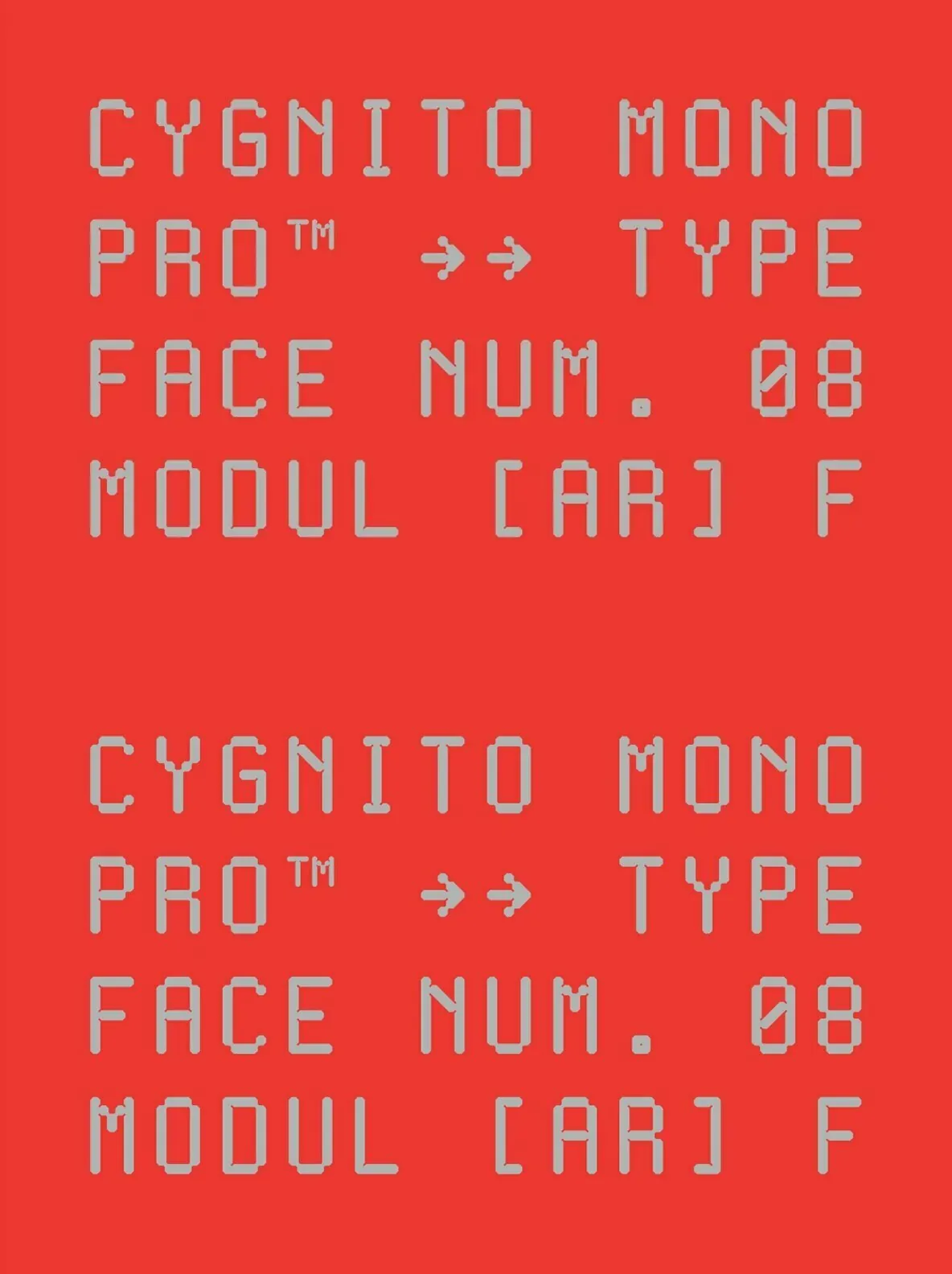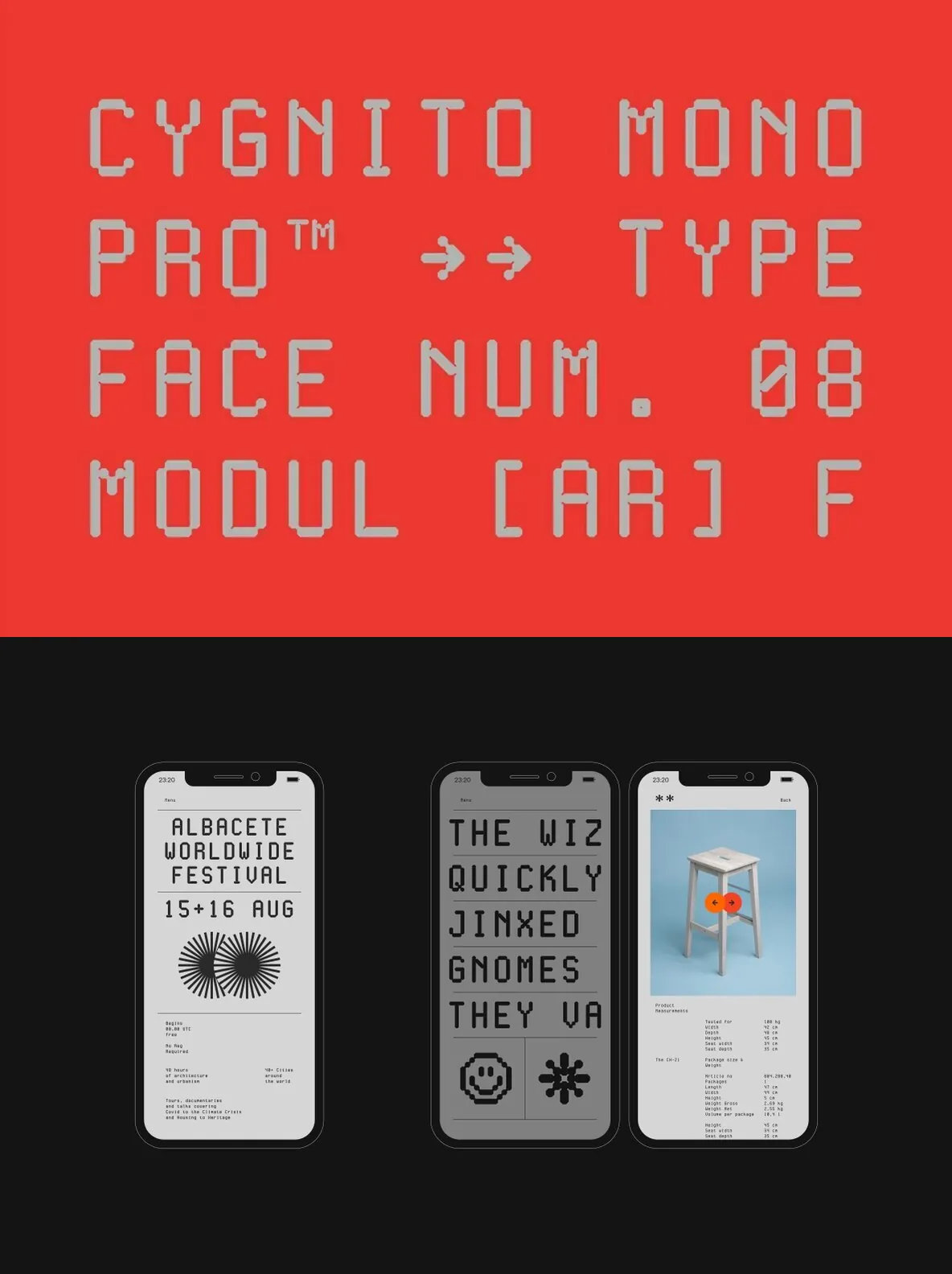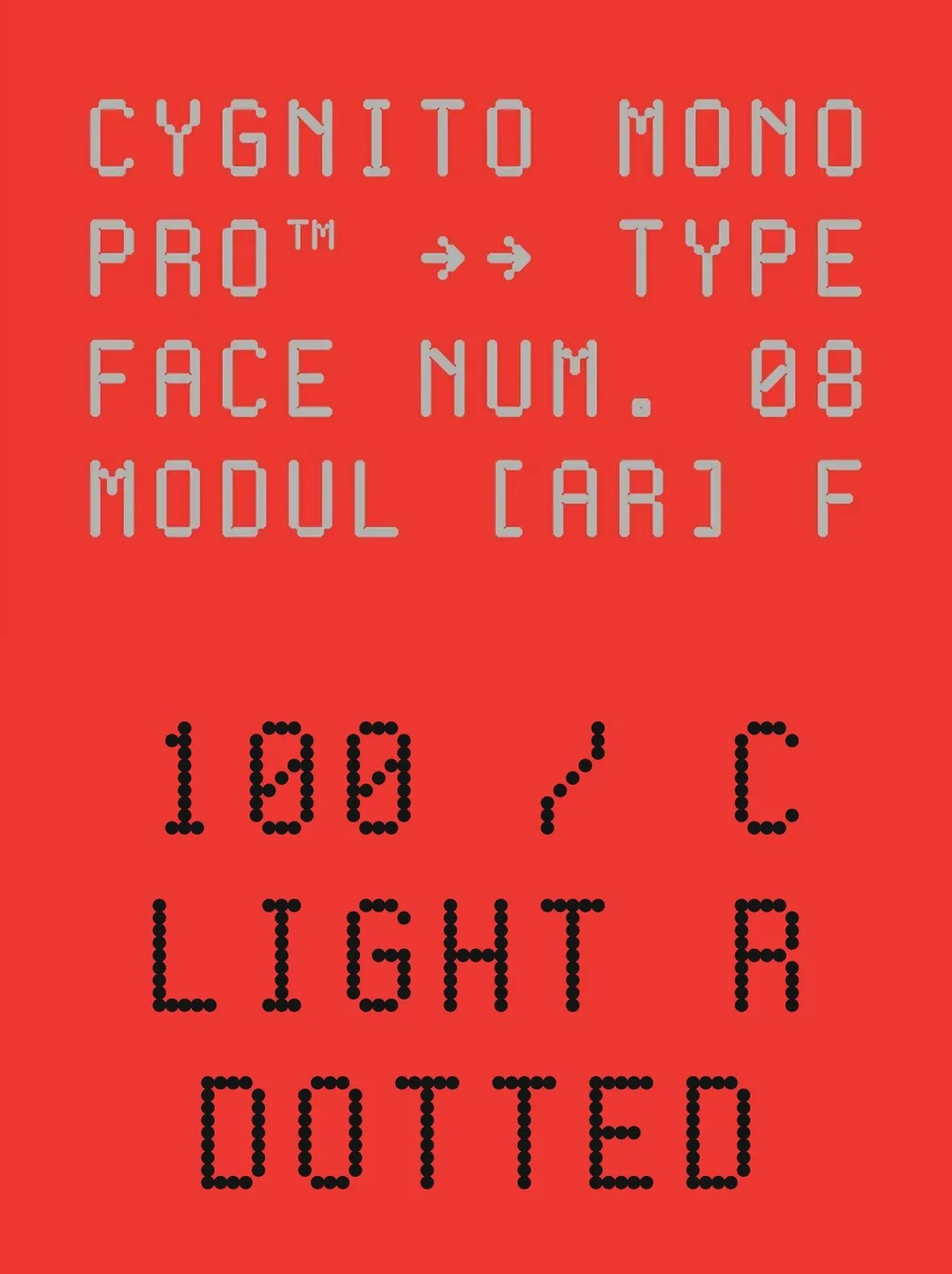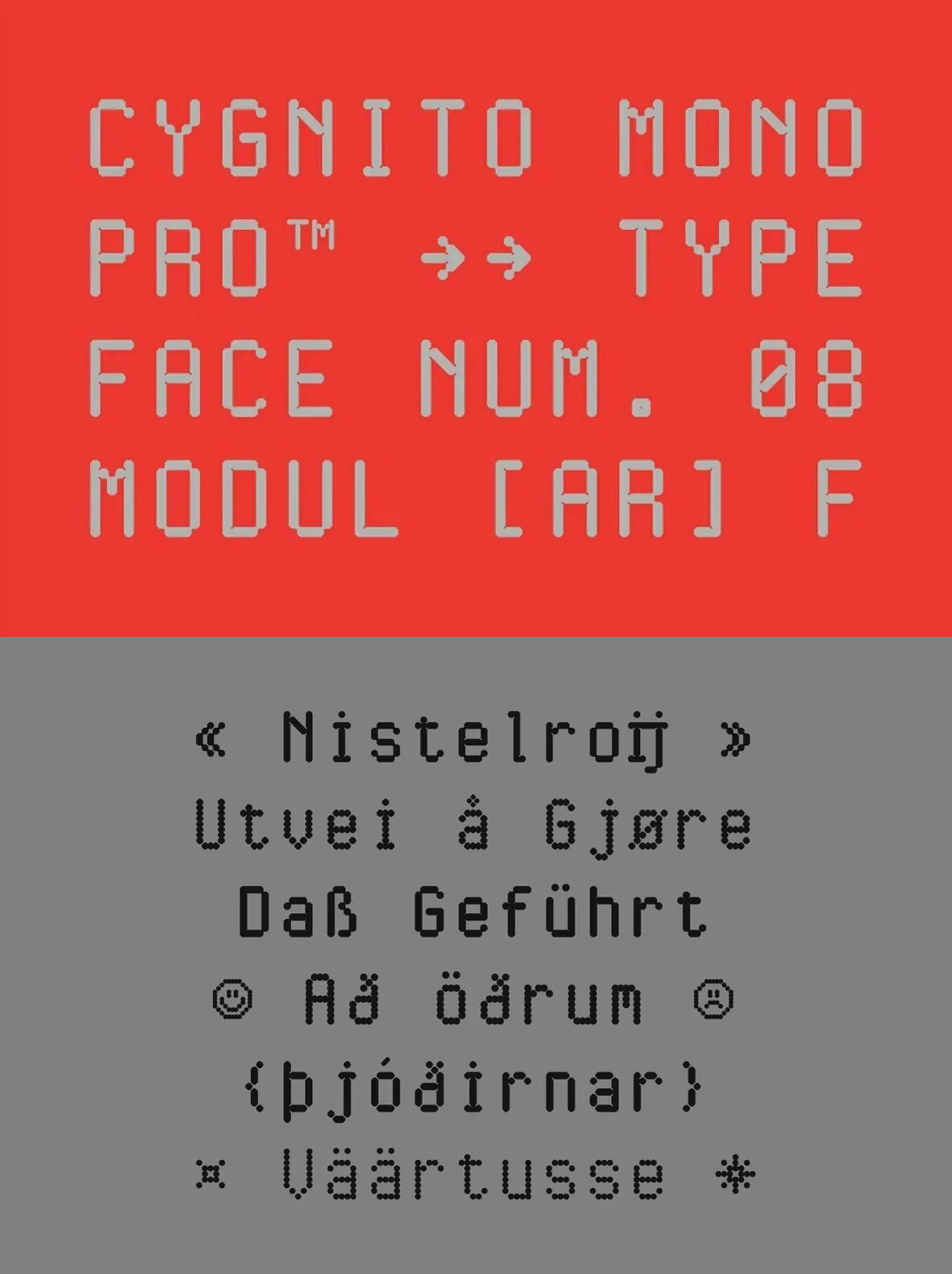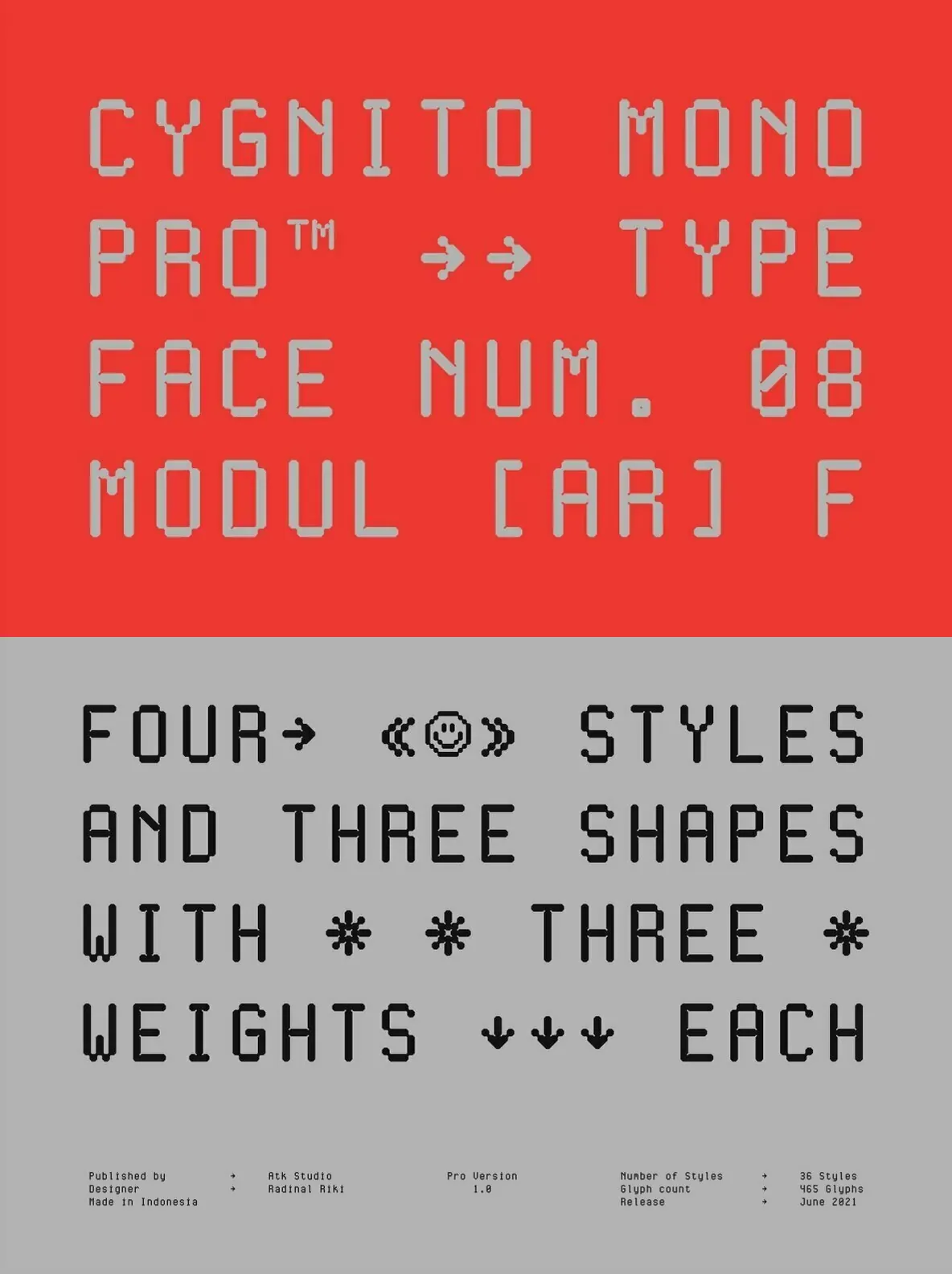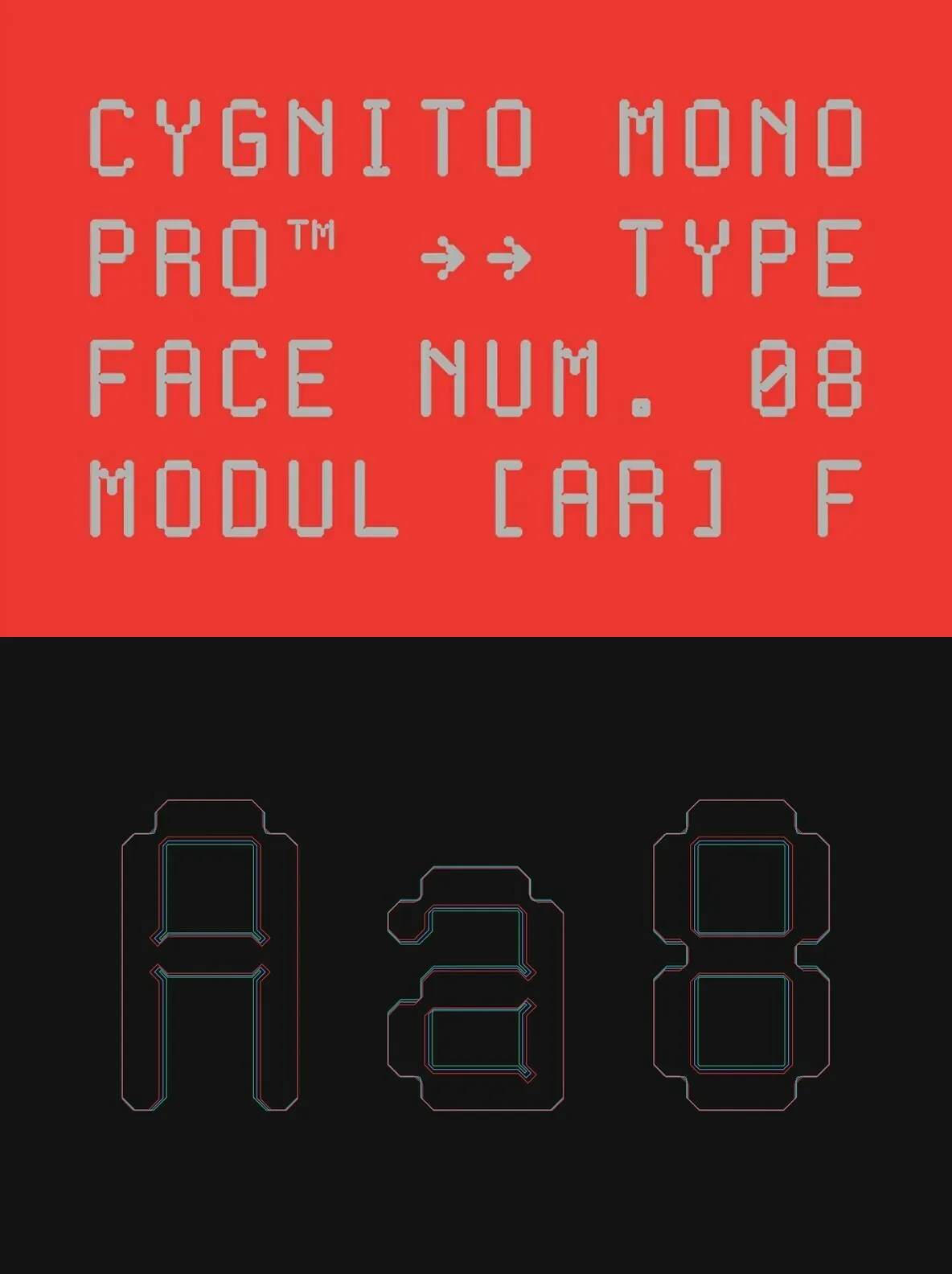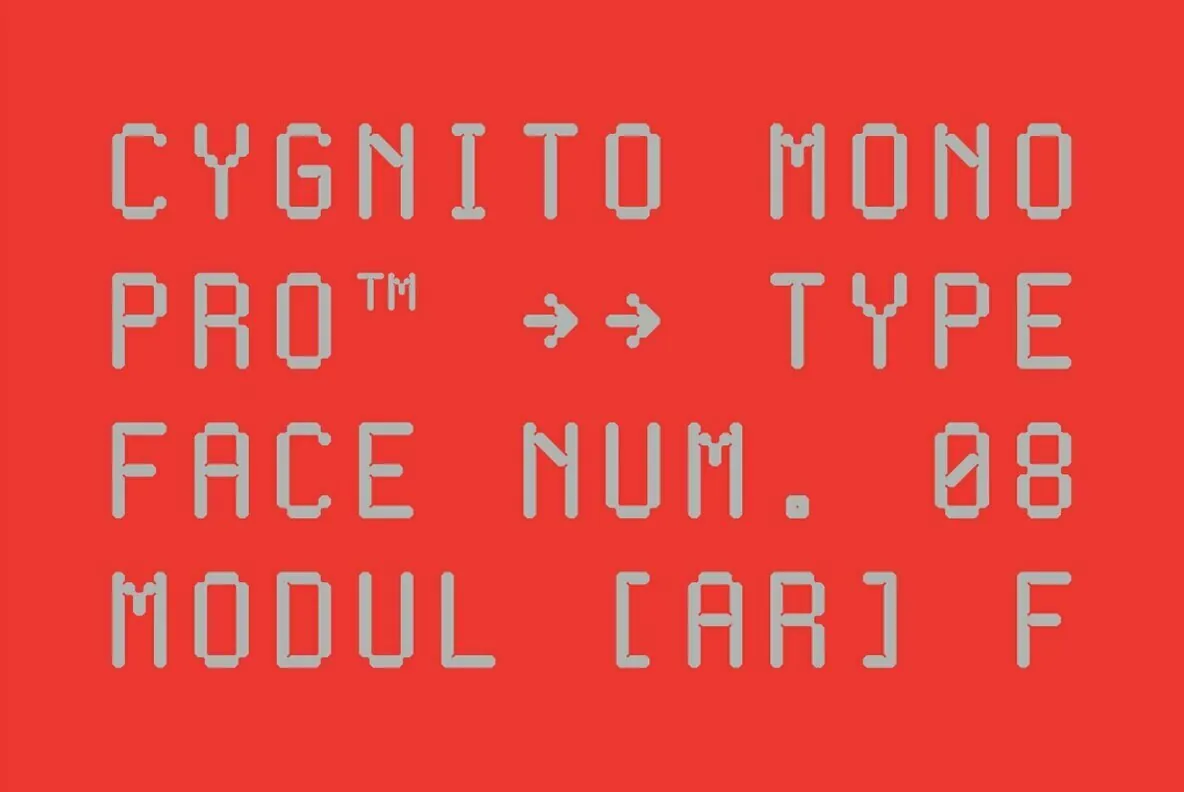
Cygnito Mono Pro — Modular, Modern, Precise
Cygnito Mono Pro is a monospaced type design built from three core shapes: circle (rounded), squircle (semi rounded), and an octagonal structure. Inspired by industrial design and modernism, it keeps a clear, technical tone while remaining visually controlled across sizes and screens.
This Pro version includes 36 fonts and comes with 4 styles with 3 weights each. Built on a modular architecture, Cygnito Mono Pro fits programming applications and technology-driven design projects. It also suits work centered on mathematics, science, computers, and UI/UX applications, where consistent spacing and a structured voice matter.